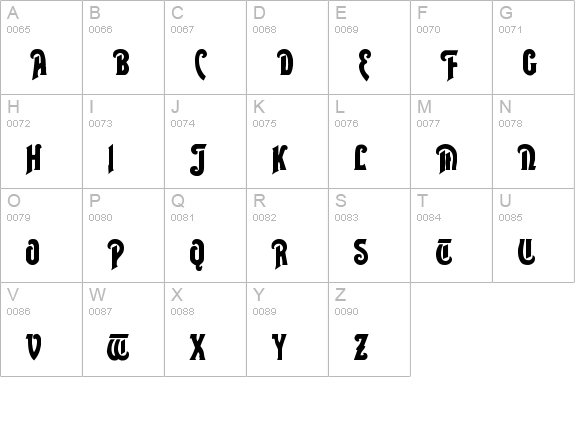
Thalia Font Details
Thalia font is a stunning display font that perfectly combines elegance and modernity. With its clean lines and stylish curves, it is sure to add a touch of sophistication to any design project. Whether you're creating a logo, a poster, or even a wedding invitation, Thalia font will effortlessly catch the eye and make a lasting impression. One of the best things about Thalia font is that it is completely free. Yes, you read that right! This amazing font is freely available to download at FontsMarket.com. So not only is it a beautiful addition to your font collection, but it also won't cost you a penny. Designed with versatility in mind, Thalia font is suitable for a wide range of applications. Its distinct character and attention to detail make it perfect for both digital and print projects. From headlines to body text, Thalia font will bring your words to life and make them stand out from the crowd. The creators of Thalia font have put their heart and soul into crafting this exceptional typeface. The result is a truly unique and captivating font that will elevate your designs to new heights. So why wait? Head over to FontsMarket.com and download Thalia font today. It's time to unleash your creativity and let Thalia font be the star of your next design masterpiece.